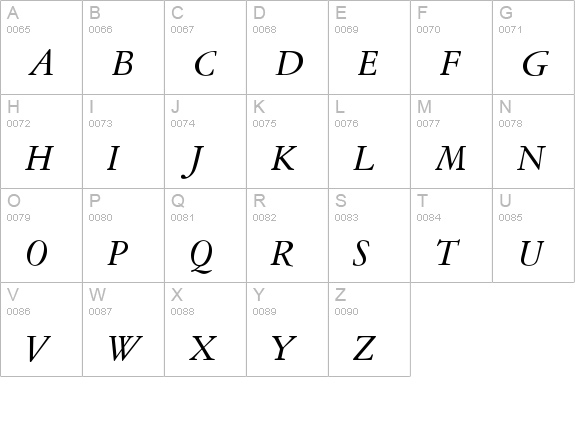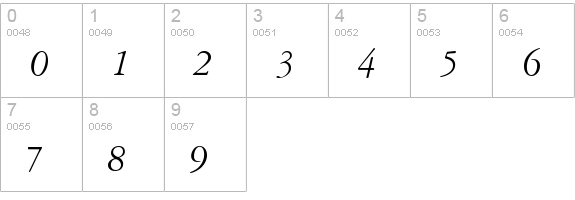
American Garamond Italic Font Details
American Garamond Italic is a distinctive, italic variant in the American typeface family \xE2\x80\x94 well suited to design and typography projects.
American Garamond Italic is a beautiful and elegant font that exudes sophistication and style. Its slanted design adds a touch of flair and grace to any text, making it perfect for adding emphasis or creating a sense of flow in your projects. The italicized characters of American Garamond showcase a classic yet contemporary look, making it a versatile choice for various design applications. What sets American Garamond Italic apart is not just its timeless appeal, but also the fact that it is available for free download at FontsMarket.com. This means that you can easily access this high-quality font without any cost, making it a valuable addition to your font collection. Whether you're working on a professional project, personal design, or creative endeavor, American Garamond Italic offers a refined and sophisticated touch that will elevate your work to the next level. Download it today and enhance your designs with this exceptional font.